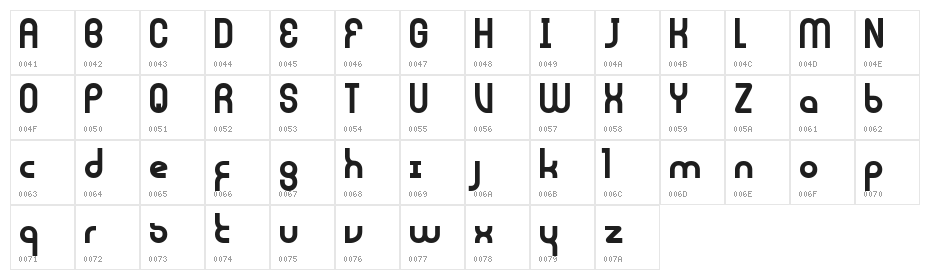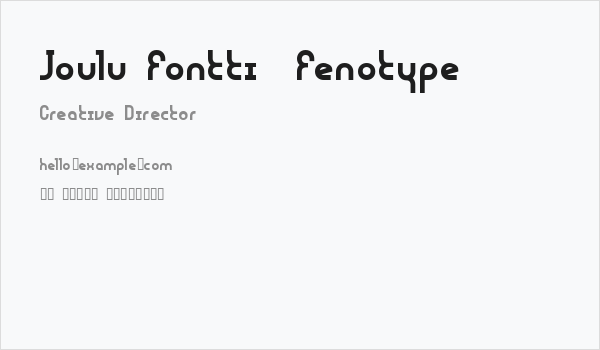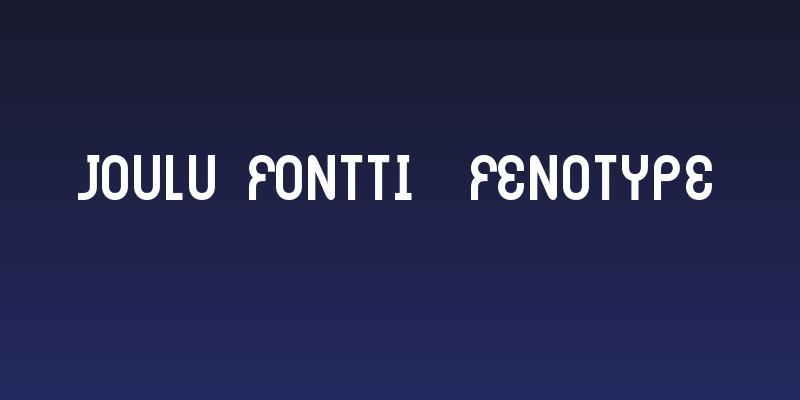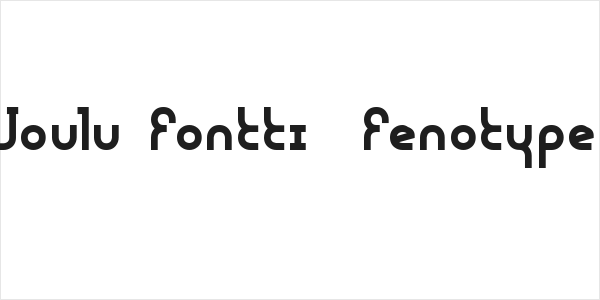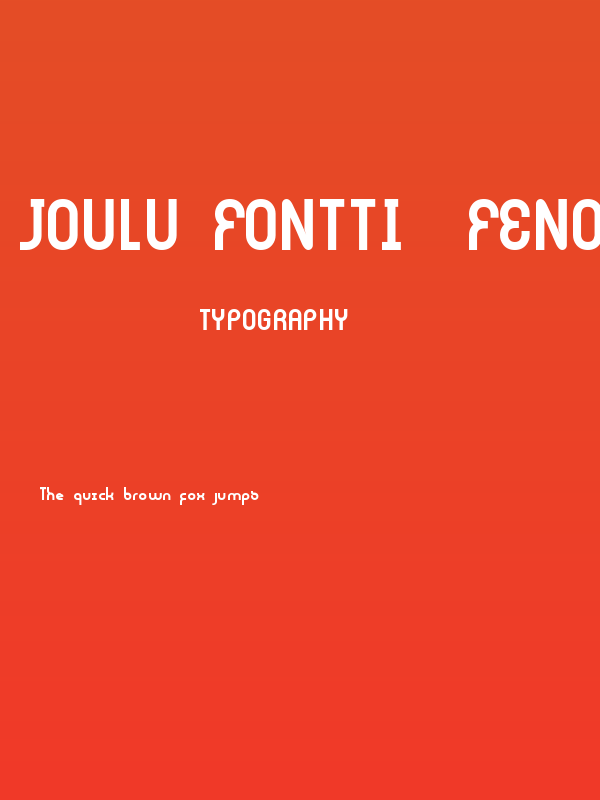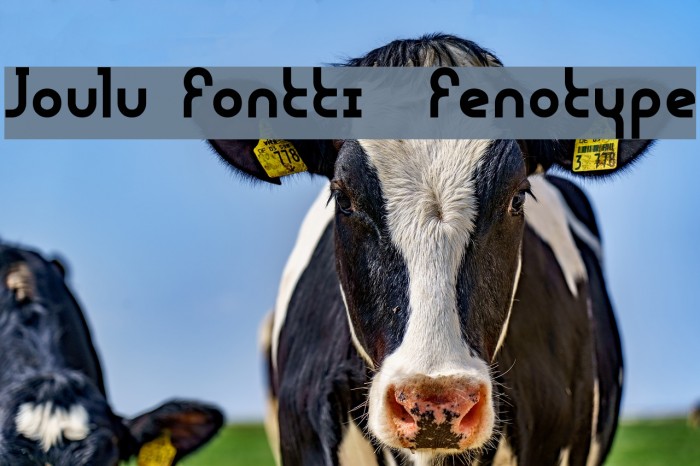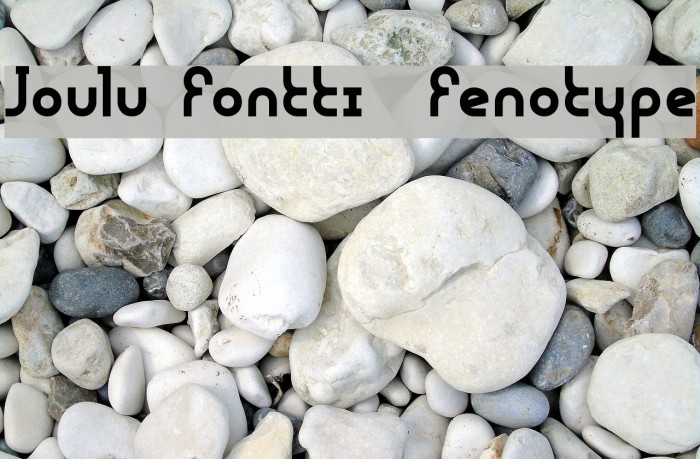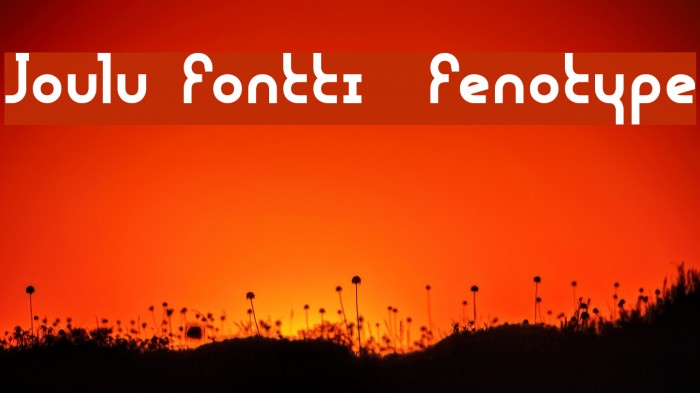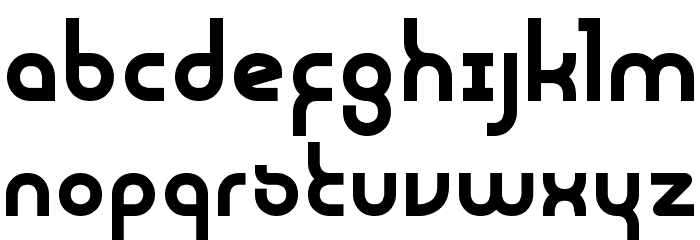
Joulu Fontti Fenotype Font
Joulu Fontti Fenotype Description
This font features a modern and playful design with a geometric structure. The characters are bold and rounded, giving a friendly and approachable feel. The uppercase letters have a uniform height, while the lowercase letters maintain a consistent baseline, adding to the clean and organized appearance. The font's unique style is evident in the way certain letters, such as 'g' and 'j', have distinctive curves and loops. The numerals are clear and easy to read, matching the overall aesthetic. Special characters are included, maintaining the same bold and rounded style, ensuring consistency across all elements.
| Use Case | Logos, Headlines, Posters |
| Proposed Projects | Ideal for branding, advertising, posters, and packaging design where a modern and friendly look is desired. |